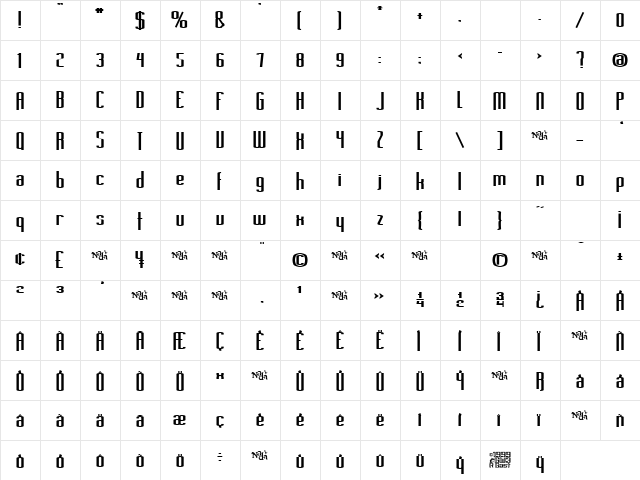
Long Cool Grandma Regular
Design Context for Long Cool Grandma Typeface
Long Cool Grandma offers clean, dependable letterforms without strong stylistic allegiance, making it a practical choice for designers who need flexibility.
Pro Tip: Use Long Cool Grandma in both headline and body roles to test its range before committing to a single application.